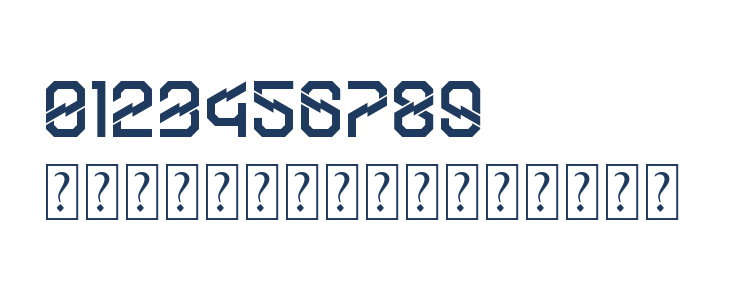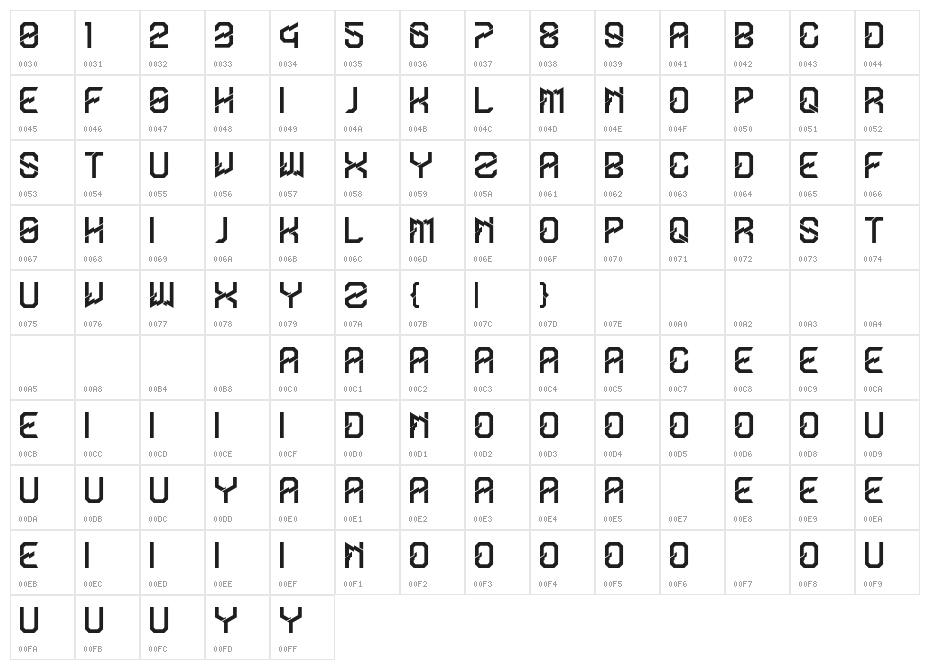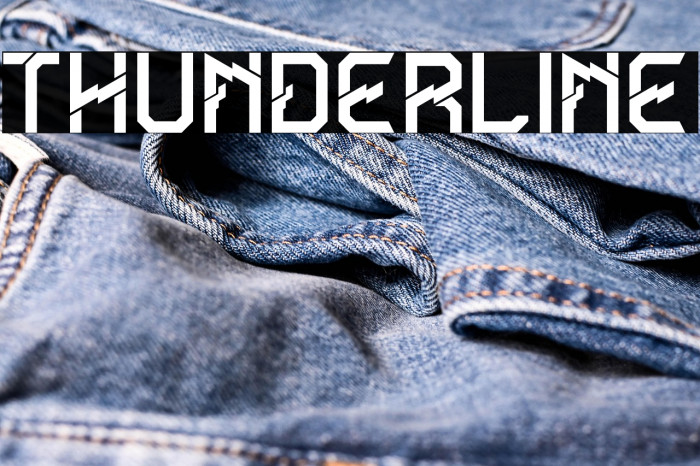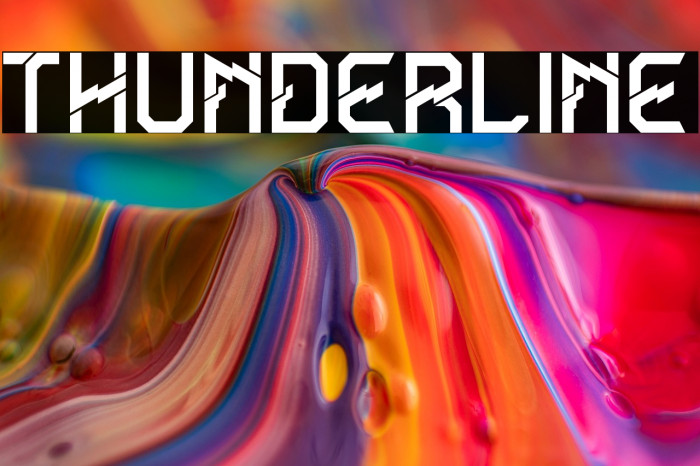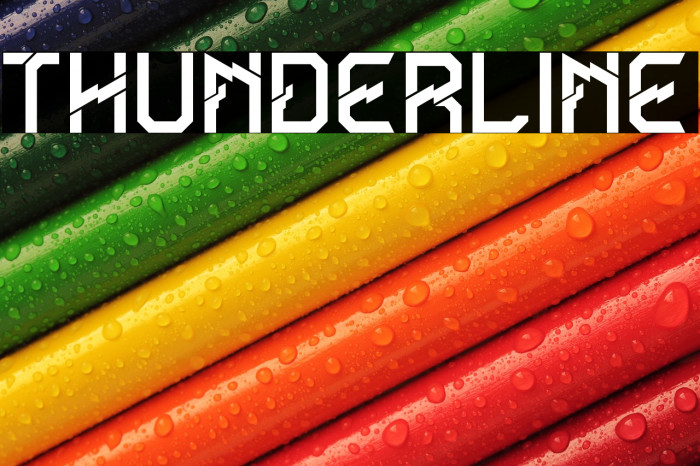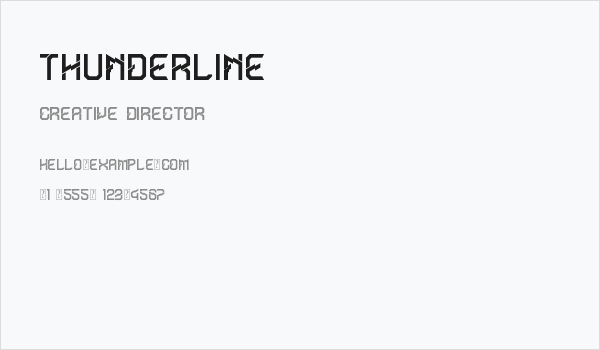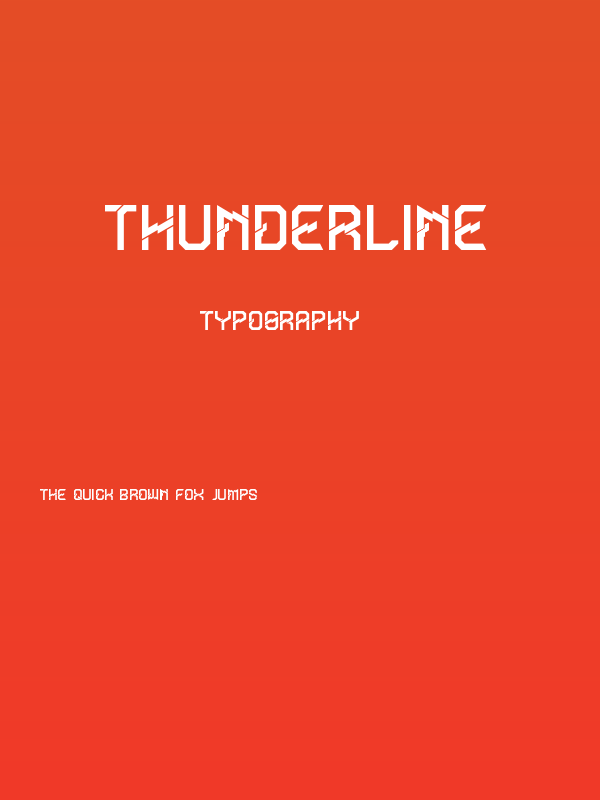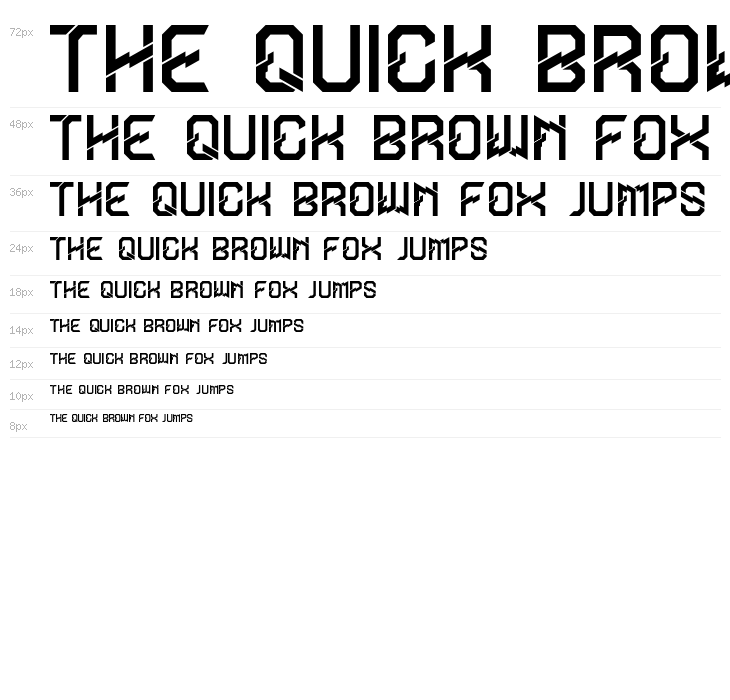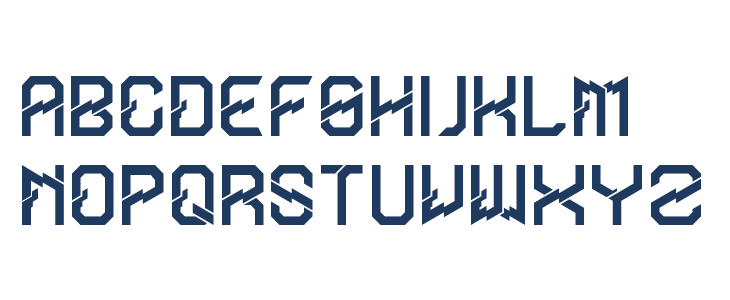
Thunderline Font
Thunderline Description
This font features a bold, geometric design with sharp angles and a striking, modern aesthetic. Each character is crafted with a unique, angular style that incorporates dynamic slashes through the middle, giving it a sense of movement and energy. The uppercase and lowercase letters maintain a consistent design, while the numbers and special characters follow the same angular theme. This font's distinct appearance makes it ideal for projects that require a futuristic or edgy look.
| Proposed Projects | Ideal for branding, posters, video game titles, and any project needing a futuristic or tech-inspired look. |